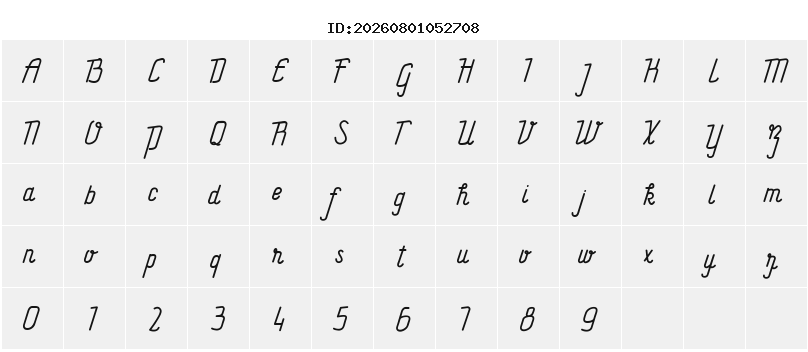
• Font Name: La Bataille du Sanctuaire
• Designer: Maelle.K
About La Bataille du Sanctuaire.ttf
La Bataille du Sanctuaire.ttf is a modern, elegant sans-serif font designed for ultimate readability and visual harmony. Perfect for branding, headlines, web design, and print materials.